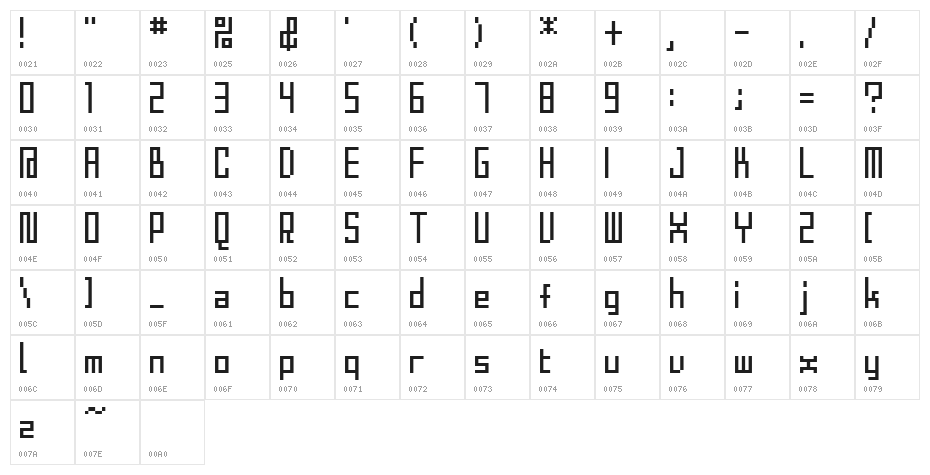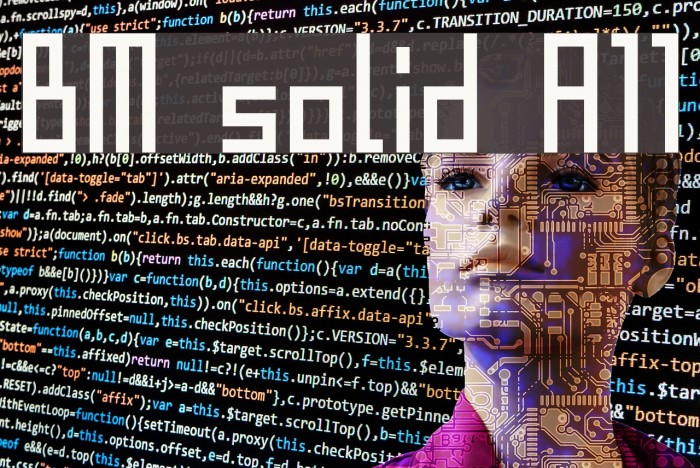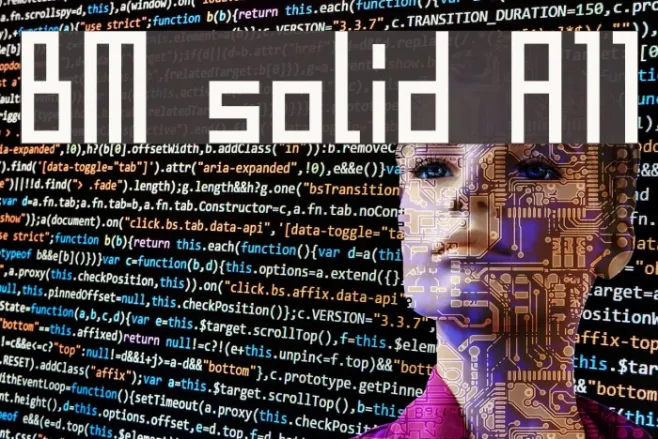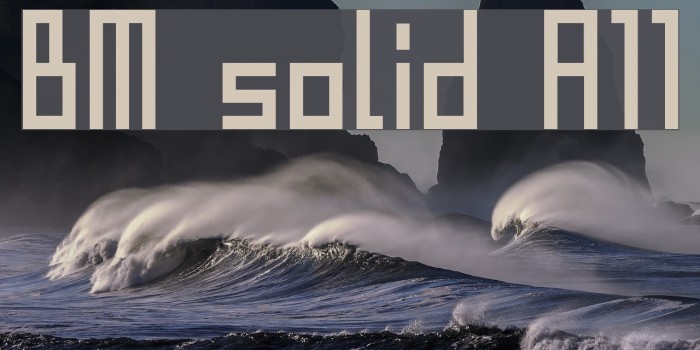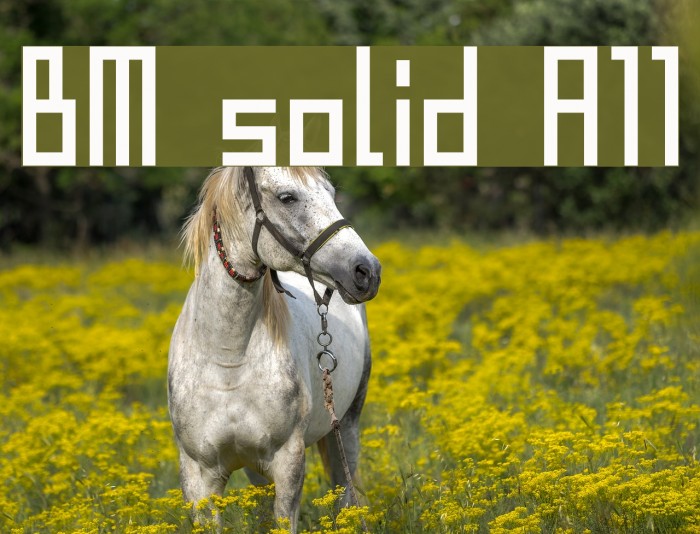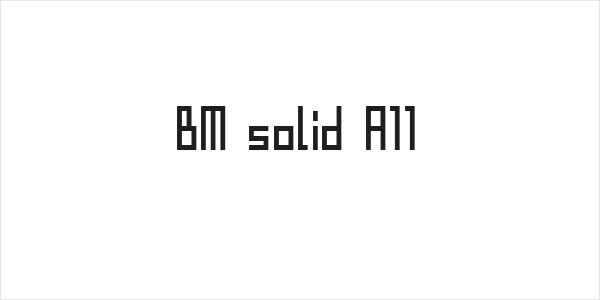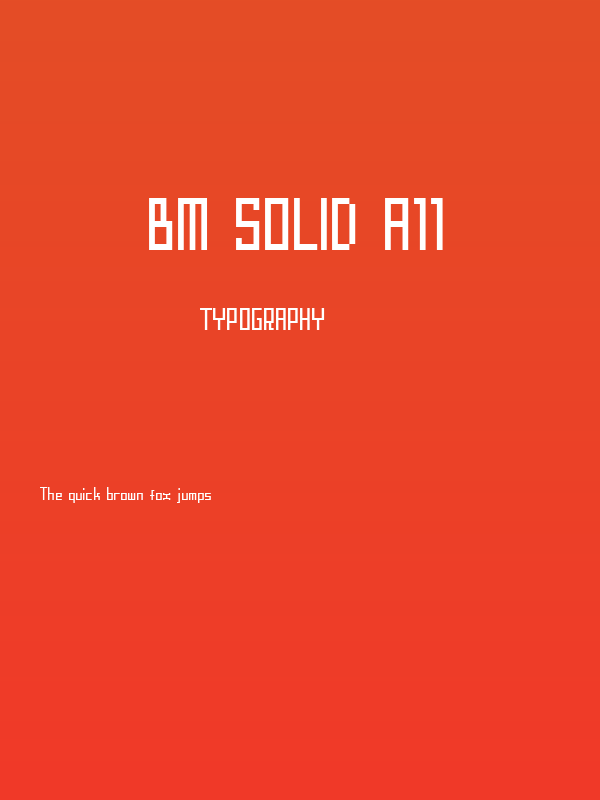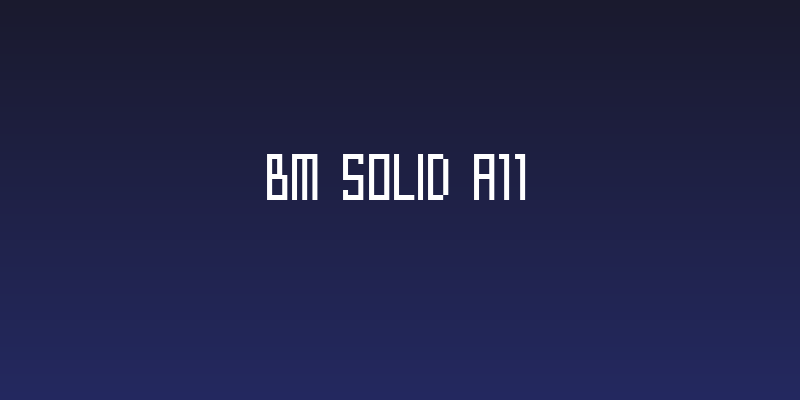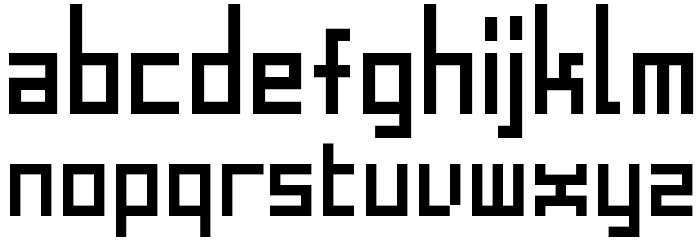
BM solid A11 Font
BM solid A11 Description
This font features a bold, geometric design with a strong emphasis on straight lines and right angles. The characters are constructed with a uniform stroke width, giving it a solid and robust appearance. The uppercase letters are tall and imposing, while the lowercase letters maintain a consistent height, creating a cohesive look. The numerals and special characters follow the same geometric style, making them easily legible and visually striking. This font's blocky and modern aesthetic makes it suitable for digital displays and futuristic themes.
| Use Case | Headlines, Logos, Digital displays |
| Proposed Projects | Ideal for digital displays, video game interfaces, tech branding, and futuristic designs. |